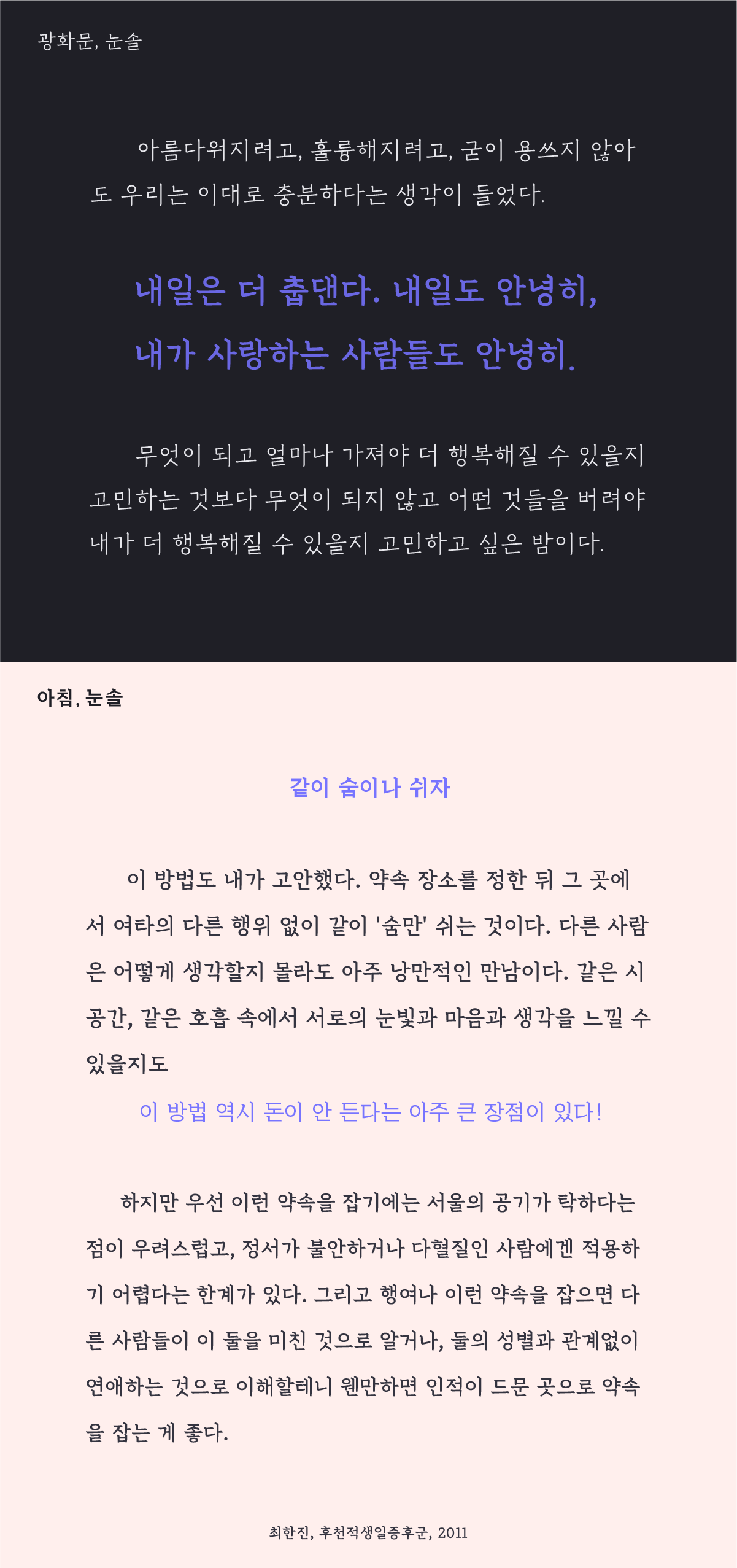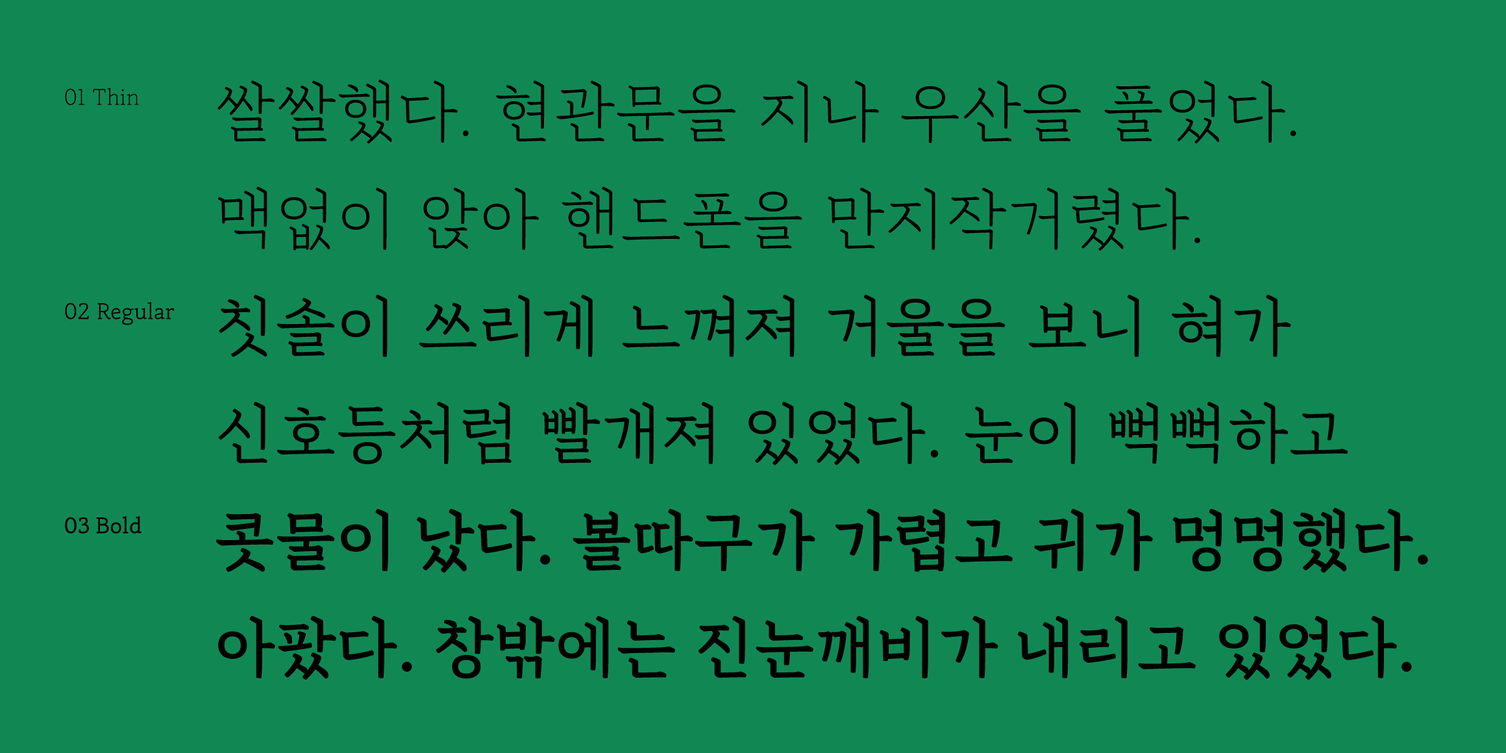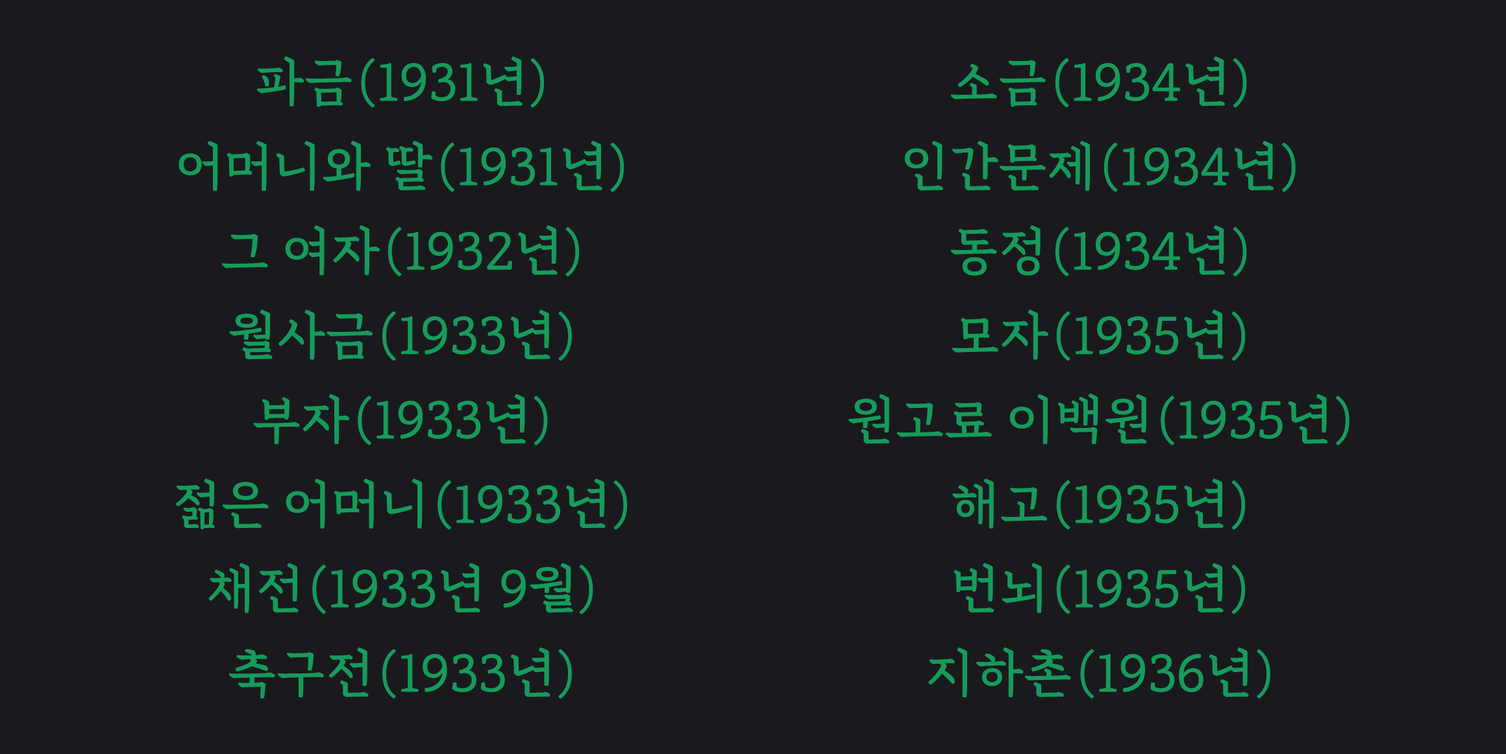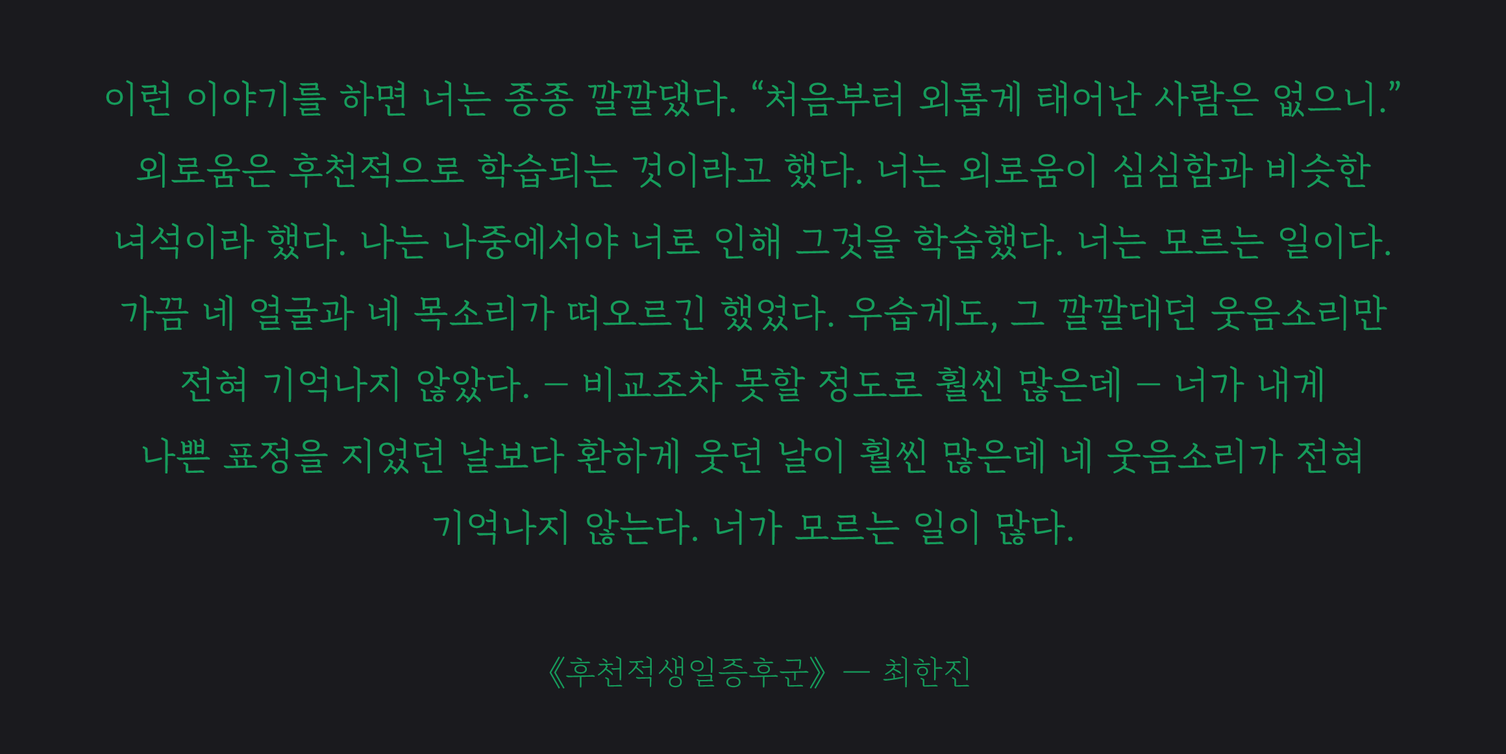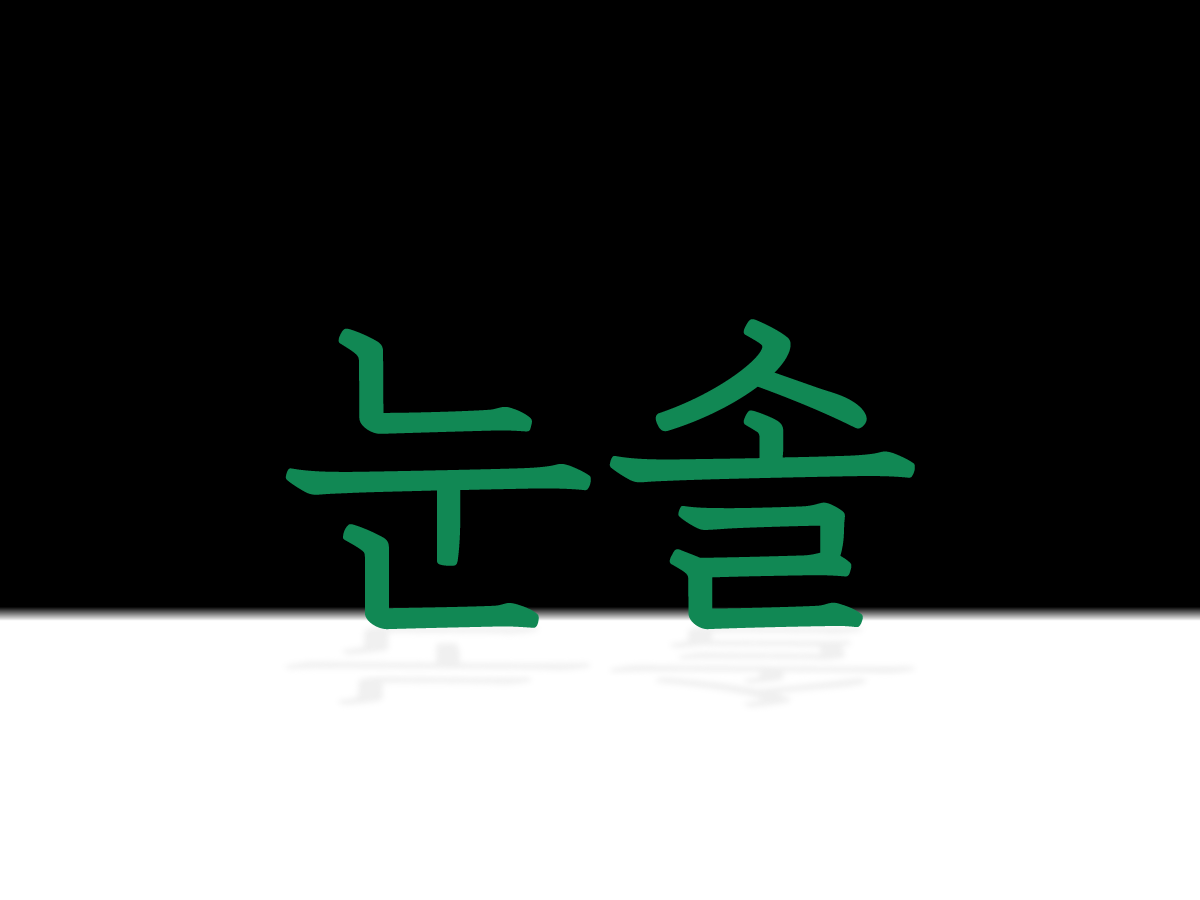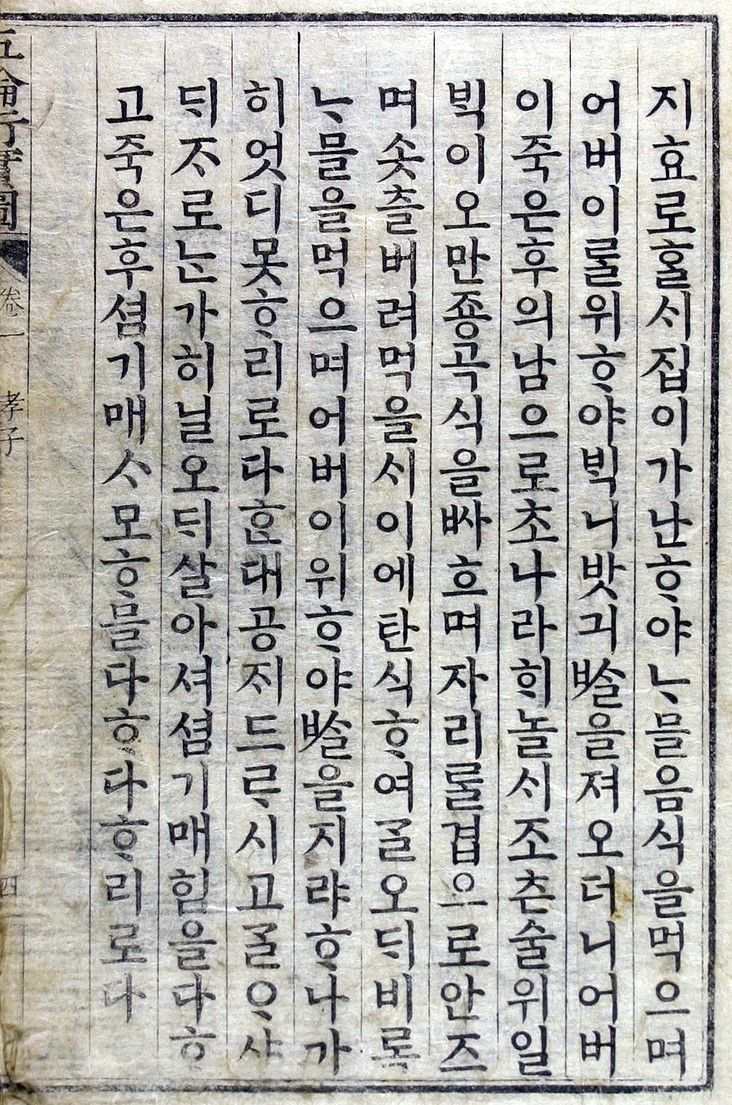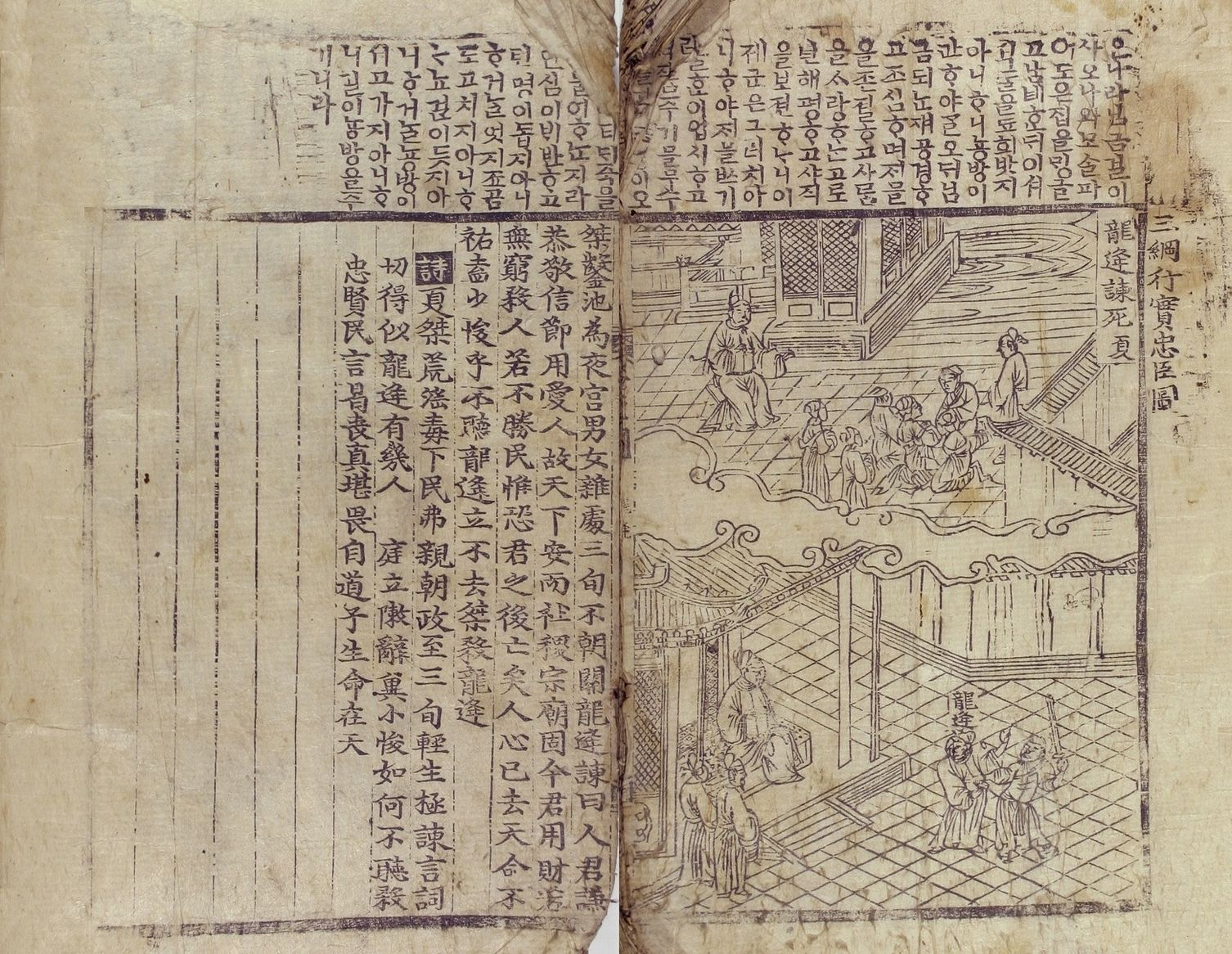
「Sandoll Nunsol」 Returns with a Weight Expansion After Four Years
In January 2021, the Product Planning Team conducted a user survey* via Sandoll Cloud, targeting users who work with Sandoll fonts. The survey included a range of questions covering user experience on Sandoll Cloud and font usability, and a total of 306 participants took part, providing statistically meaningful data. Among the questions was: “Which previously released Sandoll font would you most like to see expanded through an update?” At the time, the team was considering expansion updates—such as Hangul expansion, weight expansion, and style expansion—to improve the usability of existing fonts, and included this question to hear directly from users. 「Sandoll Nunsol」 ranked fifth overall**, allowing the team to clearly identify user demand. Since expansion updates for the 「Sandoll Gyeokdong series」, 「Sandoll Jeongche」, and「 Sandoll Hoyoyo」 were already planned, this result became the deciding factor in moving forward with the expansion update for 「Sandoll Nunsol」.
** From first place onward: 「Sandoll Gyeokdong Gulim」 (31.7%), 「Sandoll Jeongche」 (18%), 「Sandoll Gyeokdong Myeongjo」 (16%), 「Sandoll Hoyoyo」 (15.7%), 「Sandoll Nunsol」 (7.5%)…
In fact, 「Sandoll Nunsol」 was originally designed as a three-weight family from the very beginning of the planning stage. Due to limitations at the time of release, only the Bold weight was commercialized first, leaving some regret. The reason it had long been distributed as “03 Bold”** despite being a single weight was that Thin and Regular had already been included in the original plan. For this reason, the 「Sandoll Nunsol」 expansion project was carried out strictly based on the original designer’s intent. To mark the completion of the long-missing pieces of the puzzle, we sat down with the original designer, Kim Jinhee, to talk about Nunsol.
*As of January 2023, prior to the release of the 「Sandoll Nunsol」 weight expansion
『Samgang Haengsil do Eonhae』
『Oryun Haengsil-do』 manuscript copy
Q. Before starting the expansion project, we reviewed the original planning documents for 「Sandoll Nunsol」 that remained within Sandoll, and confirmed that 「Sandoll Nunsol」 was based on the vernacular edition of 『Oryun Haengsil-do』. Could you describe your experience reinterpreting the original letterforms in a contemporary context?
A. I approached the work with uniformity as the most fundamental condition. I unified the forms of stroke beginnings and endings, organized strokes, modules, and line flow to be consistent, and eliminated brush shading so that stroke thickness would be even throughout. In the original source, the side stem of mixed-jamo forms can be seen positioned above the connecting stem. Since this can feel somewhat awkward in a contemporary context, I moved it below the connecting stem to create a more natural impression.
Some of the subtle characteristics visible in the original also felt excessive when translated into the medium of type, so certain elements were reinterpreted. One example is the form where vertical stems and final consonant strokes are joined. In the original, due to the natural flow of handwriting, the end of the stem and the final consonant stroke are either connected or placed very close together. In the early stages, 「Sandoll Nunsol」 also followed this approach, but because this impression stood out too strongly in horizontal combinations, I revised the design so that they are separated while remaining as visually close as possible. Another element that was reinterpreted is the circular construction of the jamo ‘ㅇ’ and ‘ㅎ’ in the original. While perfectly circular forms may work well in simpler characters, when applied to more complex syllables they create disproportionate size contrasts. I felt this would undermine the overall uniformity that defines 「Sandoll Nunsol」, so these forms were slightly compressed.
Q. The solid yet even strokes, reminiscent of 『Oryun Haengsil-do』, are striking. They seem to have a strong influence on the overall page impression.
A. Among Myeongjo-type typefaces, 「Sandoll Nunsol」 is set with relatively wide vertical combinations, and the final consonant strokes also have generous proportions. This results in tighter white space, giving it a more solid appearance. In addition, the serifs and connecting strokes are drawn straight and upright to enhance a sense of firmness. All of these elements come together to create an impression that feels solid, sturdy, and comfortable.
Q. We’re curious about the origin of the name and the reactions around it.
A. In the past, I tended to give names that carried a story within them, but with 「Sandoll Nunsol」 I wanted something more intuitive. So, together with teammates at the time, we looked at the font and worked on naming it. The solid, straight strokes brought pine trees to mind, and since 「Sandoll Nunsol」 was released in January, we combined that seasonal feeling and named it 「Sandoll Nunsol」.
Q. If 「Sandoll Nunsol」 were a person, what kind of personality or appearance would it have?
A. Someone with a generous heart and a modest demeanor. A person with clear convictions, but who doesn’t use them to hurt others. I imagine someone of a certain age with that kind of character.
Q. Could you recommend fonts that work well when mixed with 「Sandoll Nunsol」?
A. I would recommend 「Sandoll Achim」, which belongs to a similar slab-serif category* and has minimal weight contrast, giving it an impression close to Nunsol. It works well when you want to express a different nuance at the same hierarchy level or add a slight emphasis. It also pairs nicely with 「Sandoll Gwanghwamun」, which has thinner strokes than Nunsol.
*One category of Latin fonts, characterized by large, heavy serifs. If you’re curious about what these fonts look like, you can check the linked article.
Q. 「Sandoll Nunsol」 seems to mark an important turning point within Sandoll. From KR1–2 specs to AK-9 specs, from 2,350 to 2,780 characters, and from paths to components. Could you share any notable episodes from the production of 「Sandoll Nunsol」?
「Sandoll Nunsol」 is a quietly strong font—so much so that one out of every two users of Sandoll brand fonts is said to be using it. It may not be flashy, but it carries a steady and solid impression. With its expanded weights designed for broader usability, we look forward to the renewed future of 「Sandoll Nunsol」.